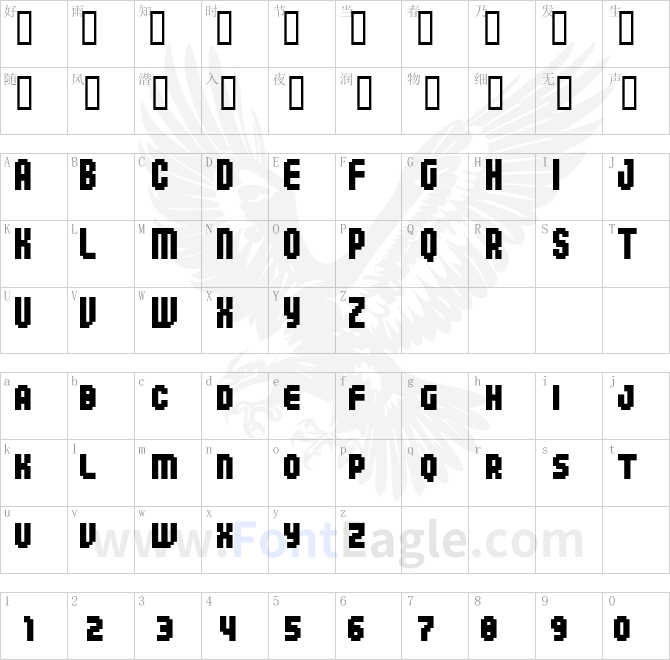
04b-25(1) is a great font, widely used in graphic design, single-page menu design, poster design and other fields, and is deeply loved by designers.04b-25(1) download.